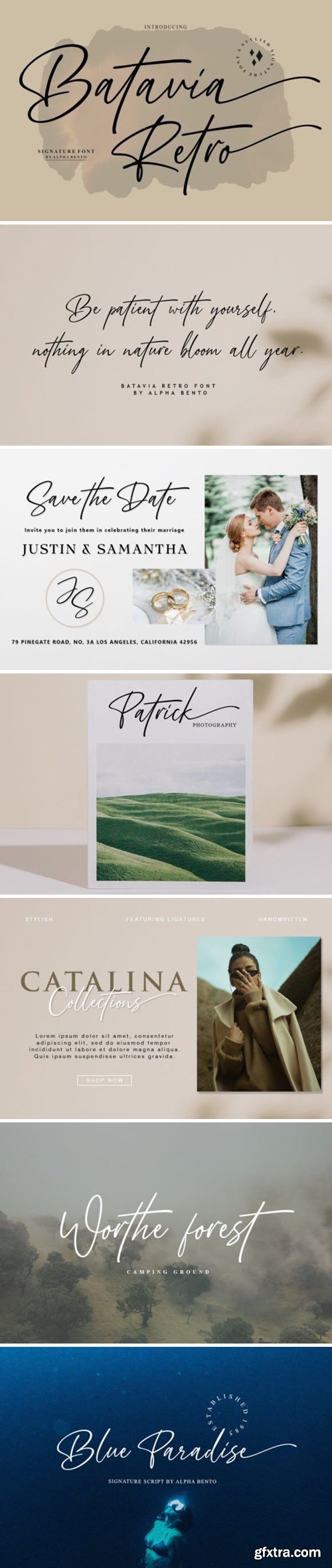
Introducing a new handwritten font, Batavia Retro, a modern and minimal typeface packed with handwritten ligatures. Batavia Retro adds chic elegance to websites, wedding stationery, modern logos and branding, social media quotes, and more. Great for signature logos and more. It is also PUA encoded which means you can access all of the glyphs and swashes with ease!